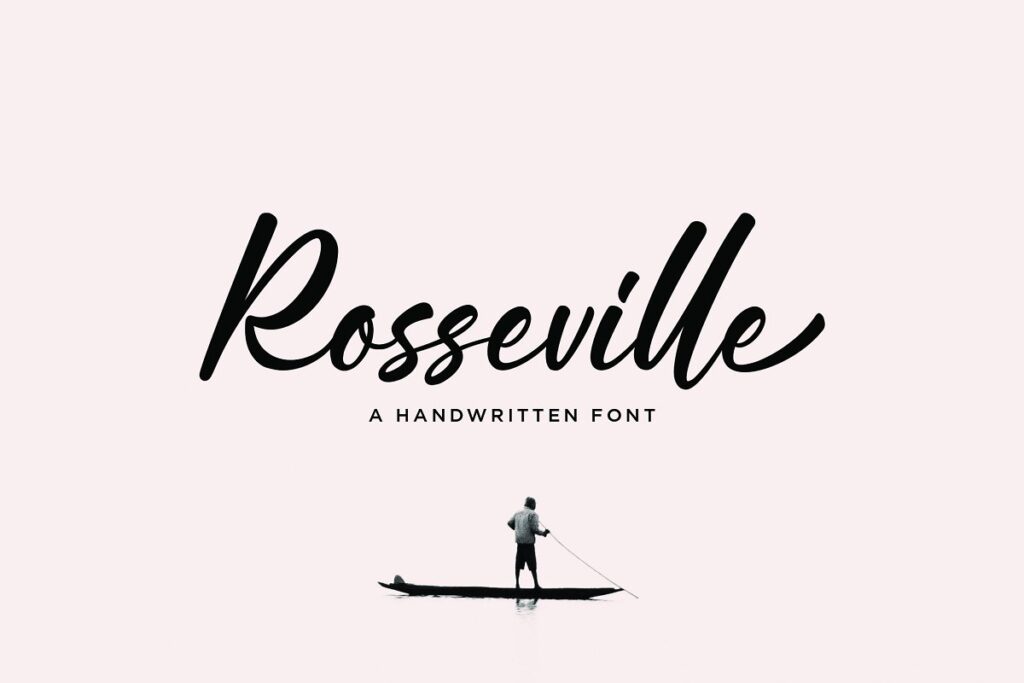
Rosseville Available Now ! This year is amazing for our team. A faboulus script font for you with tons of love. Rosseville can make your text stand out – perfect for logos, printed quotes, invitations, cards, product packaging, headers and whatever your imagination holds.